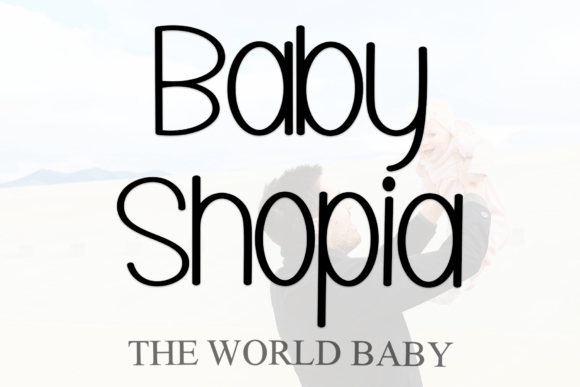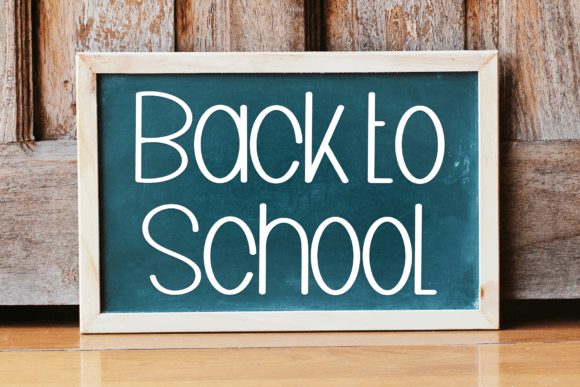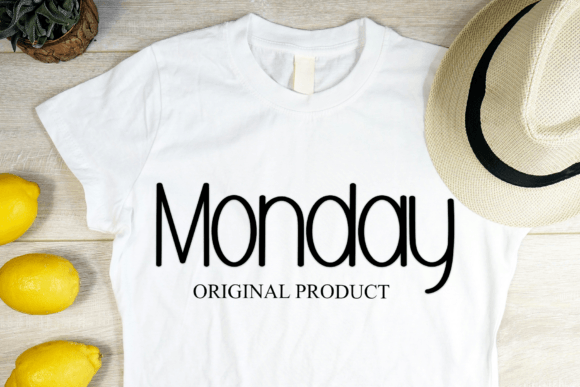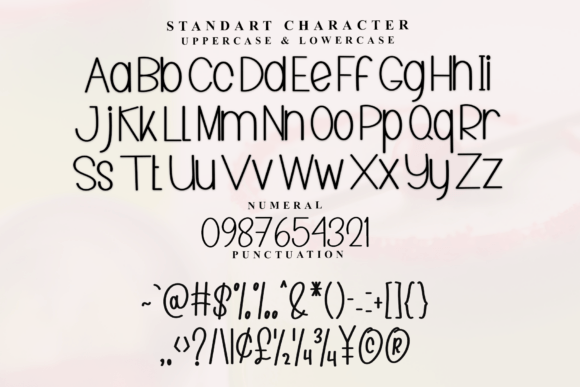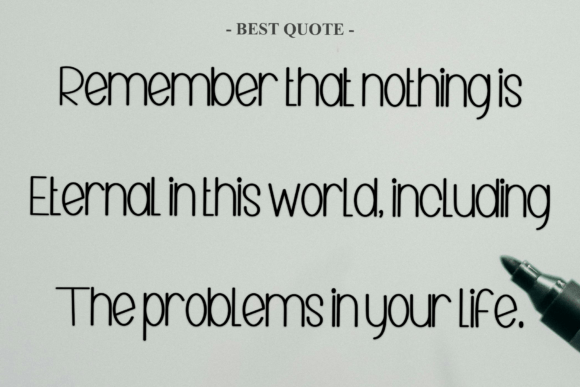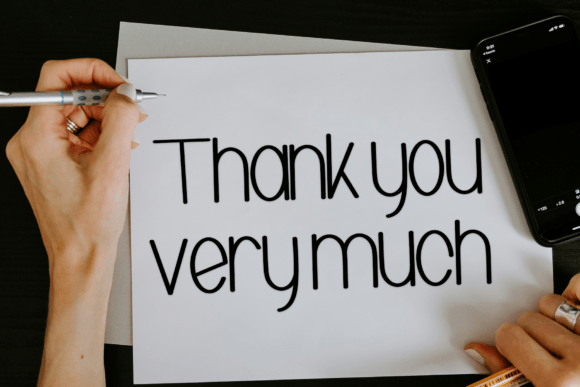
Introduction to School Summer Font
Who hasn’t scribbled down ideas in the dead of night, only to realize the beauty of a handwritten note? The imperfections, the flourishes, the personal touch – it’s what makes a design truly special. For designers, finding the perfect font can be just as magical. That’s why we’re excited to introduce you to the School Summer Font, a playful handwritten font that’s sure to bring a smile to your face.
With its relaxed and friendly style, the School Summer Font is perfect for casual designs, school projects, or fun summer-themed ideas. Whether you’re working on a creative project or need a design resource for your next big idea, this font is a high-quality addition to your toolkit. Plus, with its transparent background, it’s easy to use and customize to fit your unique vision.
Key Features of School Summer Font
- High-quality design resource with a transparent background, ideal for creative projects.
- Perfect for school-themed designs, summer projects, and educational materials.
- Unique characteristics include playful, handwritten style and a modern twist on traditional font designs.
- Excellent for use in educational graphics, posters, flyers, and other design materials.
Honest Review: School Summer Font
I recently stumbled upon the School Summer Font and I must say it’s been a great addition to my design resource library. The font’s high quality and playful style make it perfect for any creative project, especially those with a summer or educational theme.
- What works well: ✨ The School Summer Font has a transparent background, which makes it easy to use on any design without the risk of clashing with other elements.
- What works well: ✨ The font’s design is versatile and can be used for both digital and print materials, from social media graphics to flyers and brochures.
- Limitations: ⚠️ The font only comes in a limited number of styles and weights, which may not be suitable for more complex design projects.
Overall, I’m quite impressed with the School Summer Font. Its unique style and high quality make it a valuable addition to any design library. While it may not be perfect for every project, it’s definitely worth checking out for your next creative endeavor.
School Summer Font is perfect for creating fun and playful designs for educational projects, summer camps, and kids’ events. It’s also great for designing promotional materials, such as posters and flyers, for schools and educational institutions.